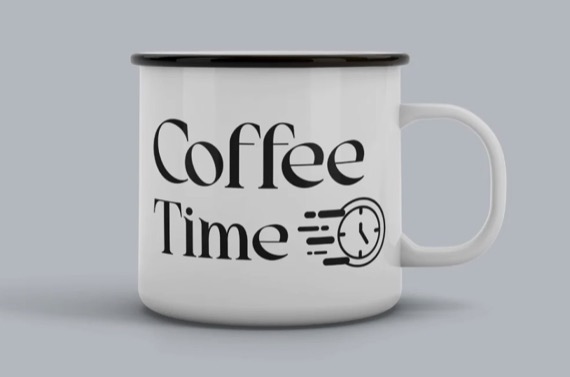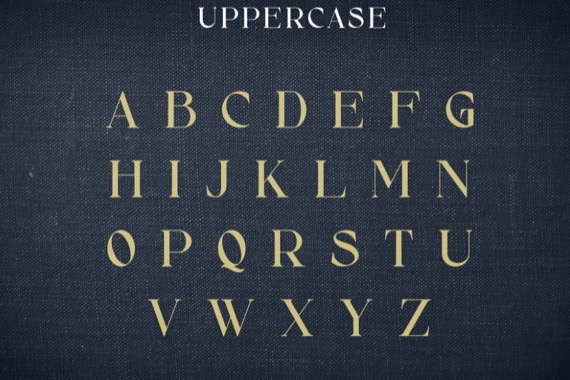
Introducing Alibold Font by Rishsketch, is a premium Serif Font, perfect for any project that requires a distinctive, and premium feel.
Alibold Serif Font